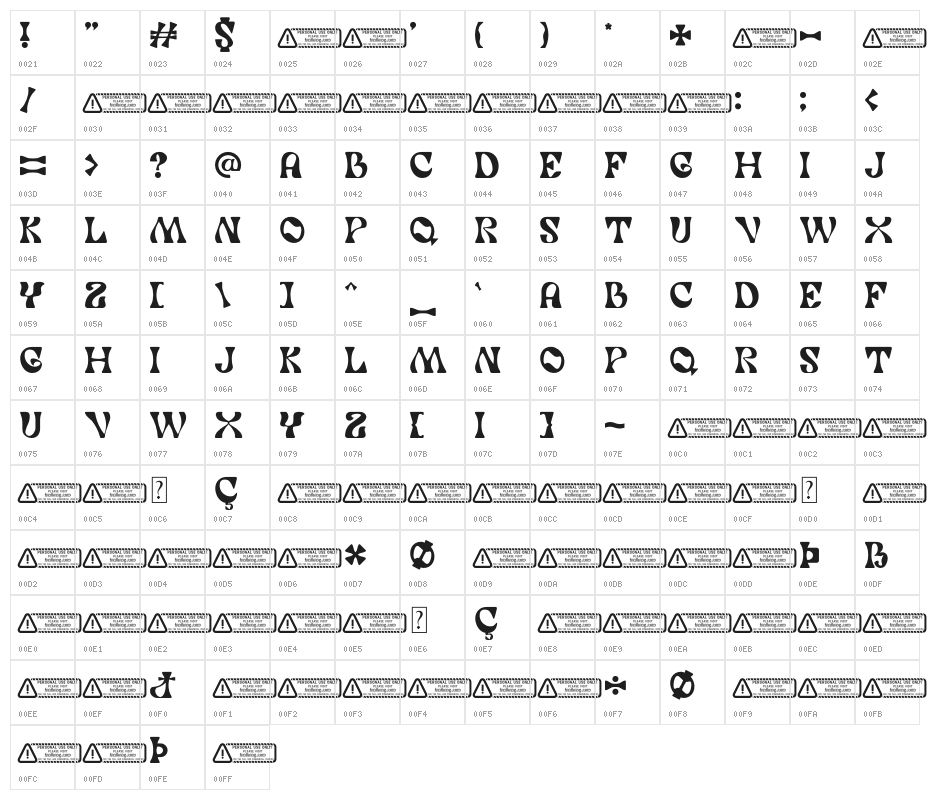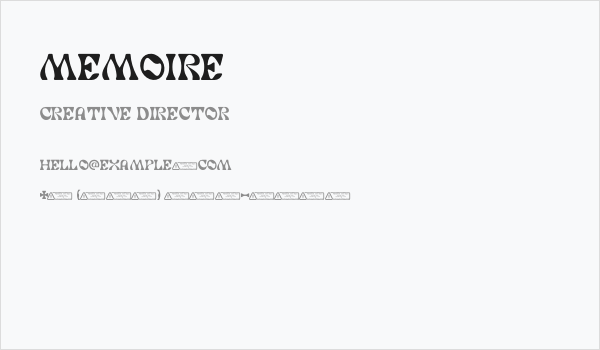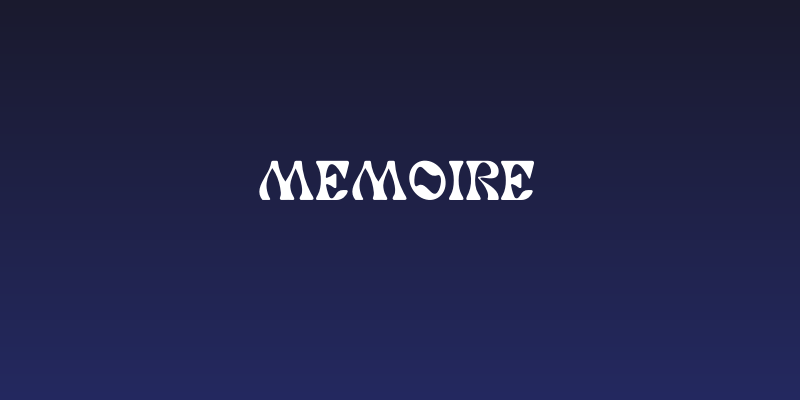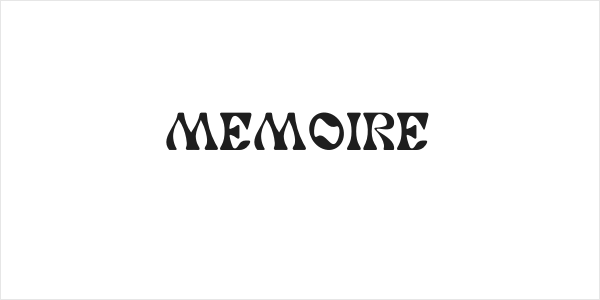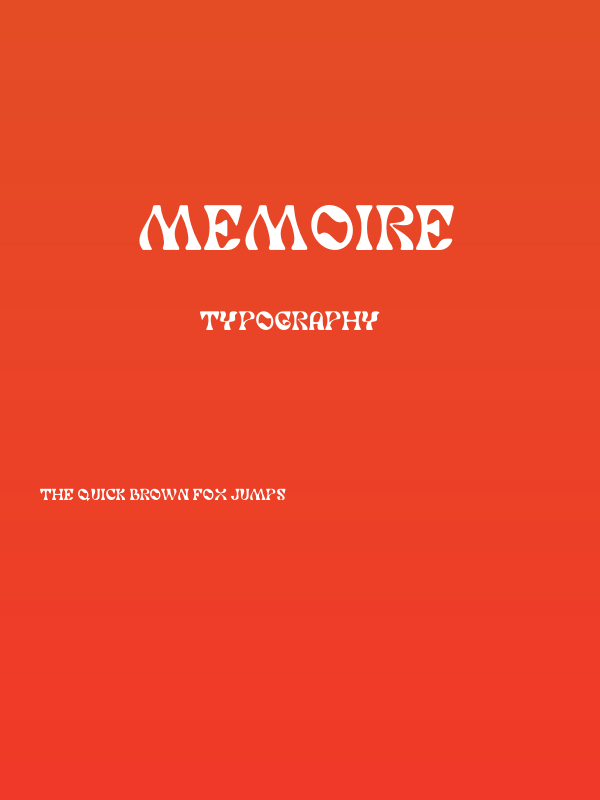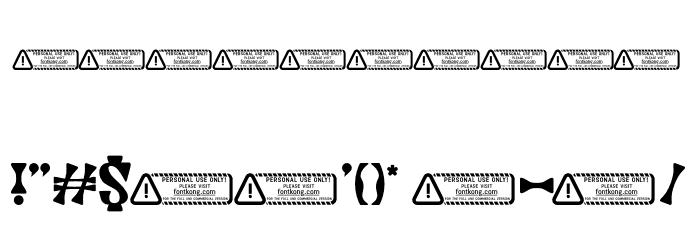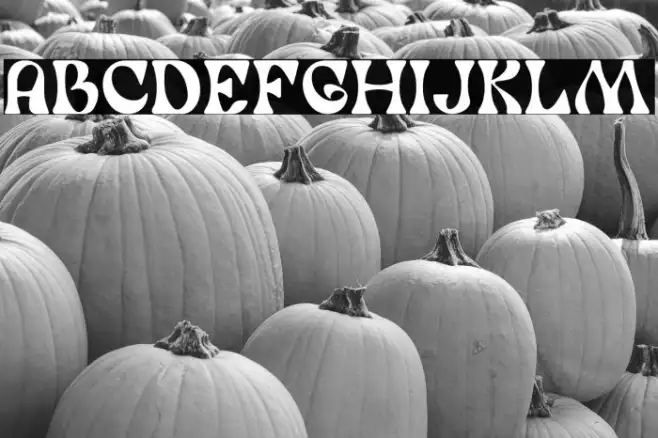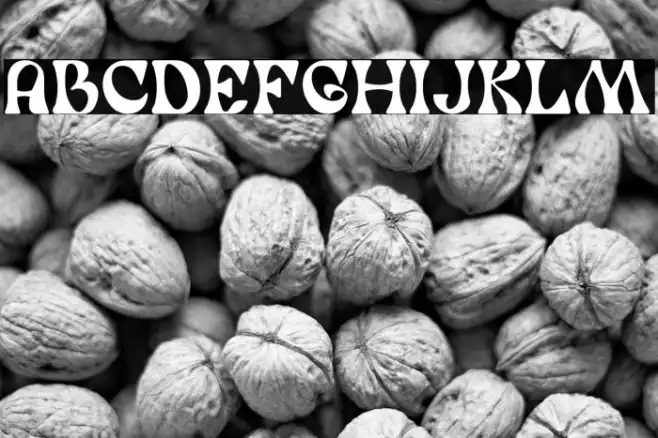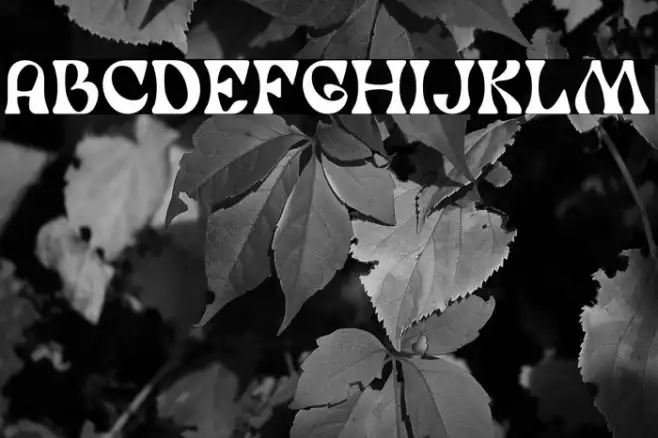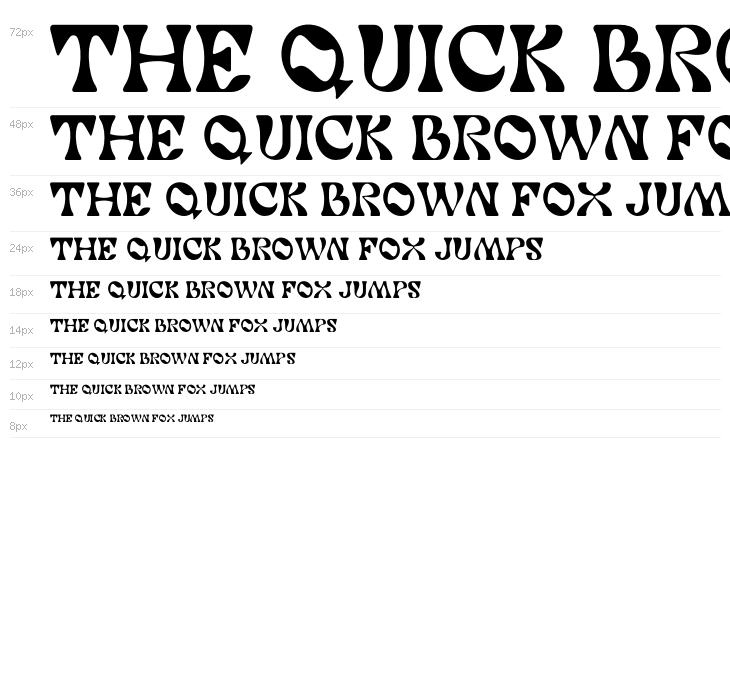
Memoire Font
Memoire Description
This font features a bold and decorative style with a unique flair. The characters exhibit a playful yet sophisticated design, incorporating both thick and thin strokes that create a dynamic visual contrast. The uppercase letters are particularly striking, with exaggerated serifs and curves that give them a distinctive appearance. The lowercase letters maintain the same decorative elements, ensuring consistency throughout the typeface. The numerals and special characters are equally stylized, making this font suitable for eye-catching designs.
| Proposed Projects | Ideal for branding, poster design, album covers, and any project requiring a bold, artistic touch. |